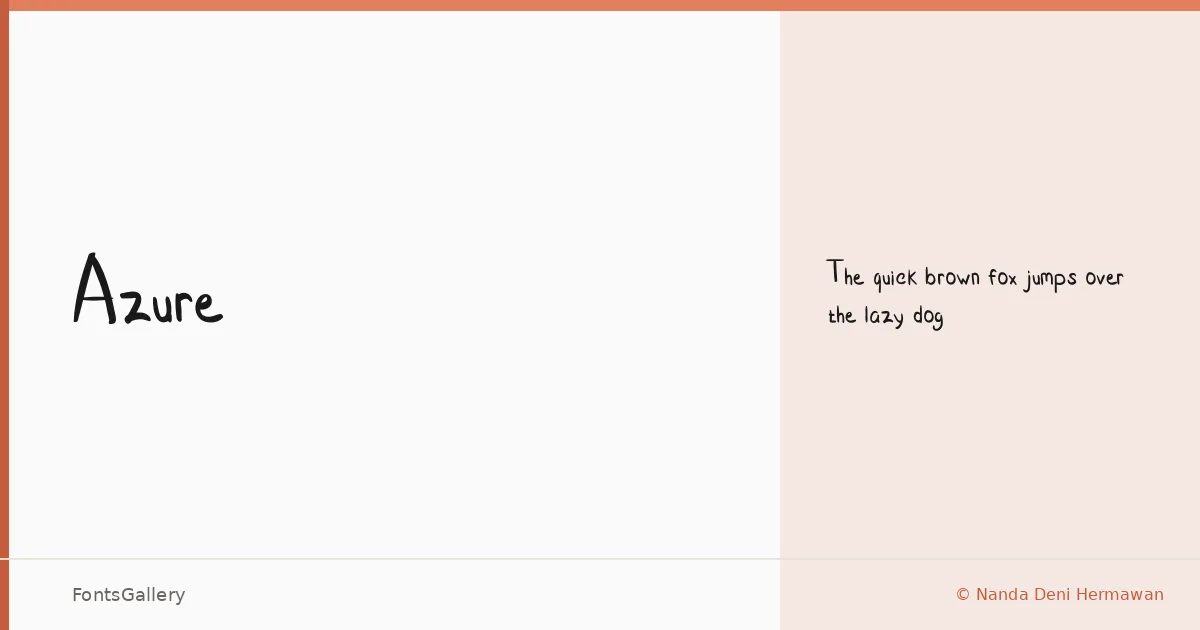
About Azure Font
There is a looseness to this script that feels genuinely hand-drawn rather than mechanically regularized — the kind of lettering you might find scrawled on a kraft-paper tag or brushed onto a chalkboard with real affection. Created by Nanda Deni Hermawan and built in FontCreator, it carries a rustic, whimsical warmth that comes from its deliberate imperfection. The single Regular weight is available in OTF format.
The family sits firmly in the handwritten category, leaning playful and rustic rather than formal or bridal. Letterforms have the kind of organic variation that keeps headlines and short runs of display text feeling lively and personal. With only the one Regular cut, its character comes entirely from the script itself — and that character is genuinely expressive.
The mood reads well across children's book covers, greeting cards, and invitation cards where personality matters more than precision. It also holds its own in social media graphics where a human touch cuts through the noise. For contrast and balance, it pairs naturally with clean, structured faces like Helvetica, Asap, Canela, ABC Arizona, or Adobe Caslon Pro — any of which will ground the script without flattening it.